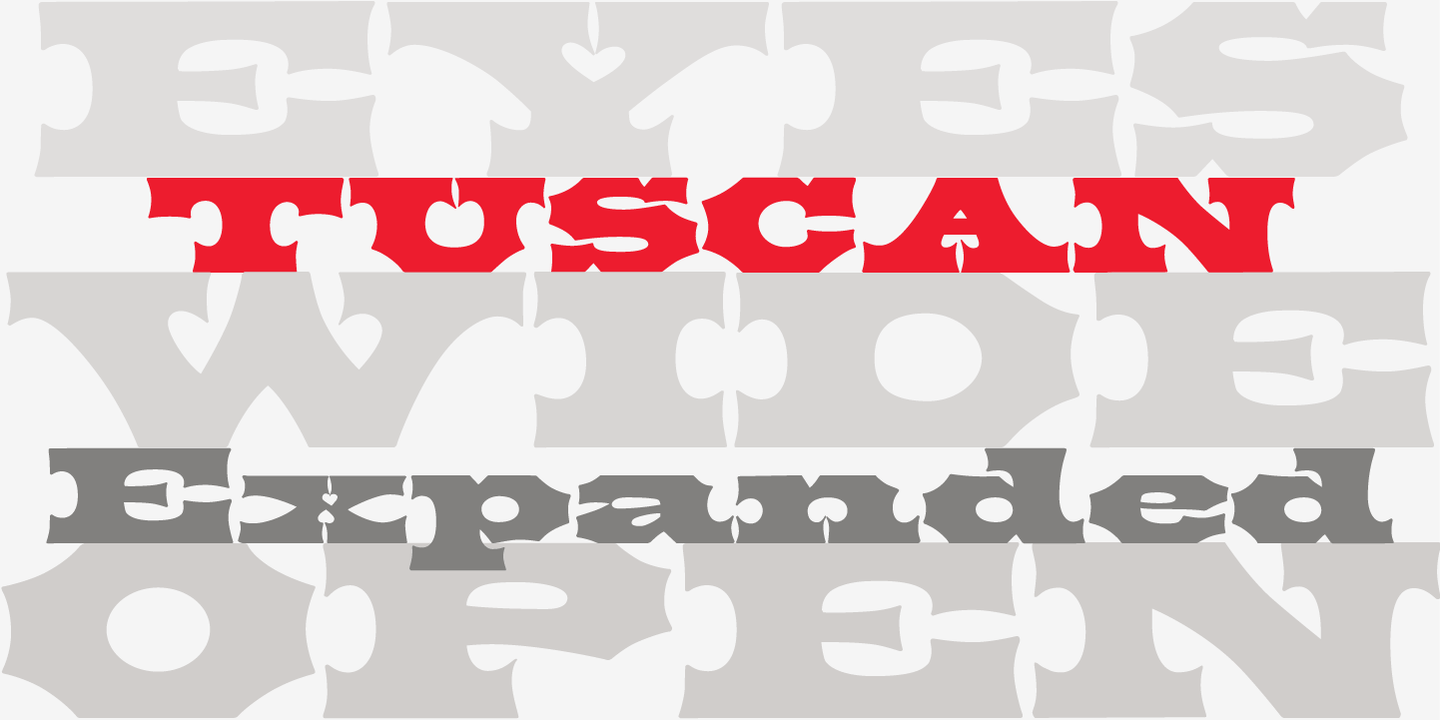
Awasome Tuscan Fonts Ideas. Sussan tuscan 01 font open font download sussan tuscan 02 font open font download sussan tuscan 03 font open font. A revival of one of the popular wooden type fonts of the 19th century, condensed, bold, curved serifs, a very useful design for display, upper and lower case.
Tuscan Fonts [Tuscan Fonts Are Overly Decorated And Often Have Bifurcating Vertical Terminals.
Gothic Tuscan Contains 1 Style.
With specials tuscan serifs to add more engraving feel. These styles continued in print use into the twentieth century. The list of sussan tuscan family fonts is:
Hwt tuscan extended designed by frank grießhammer. Explore concave tuscan available at adobe fonts. Tuscan font families the tuscan includes the following font.
Webb In Wood Type Section Of.